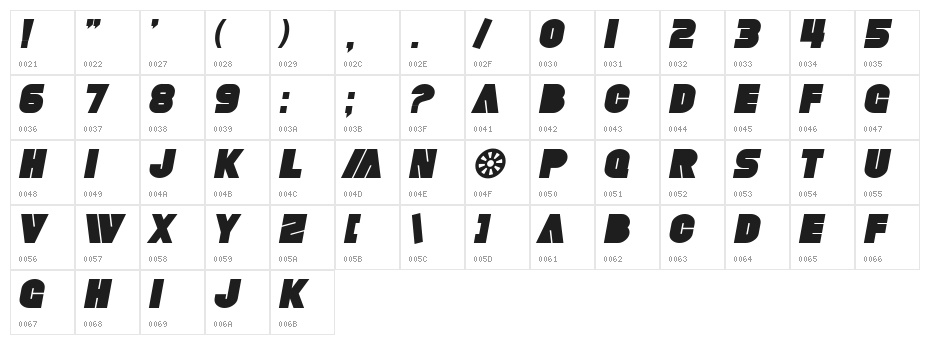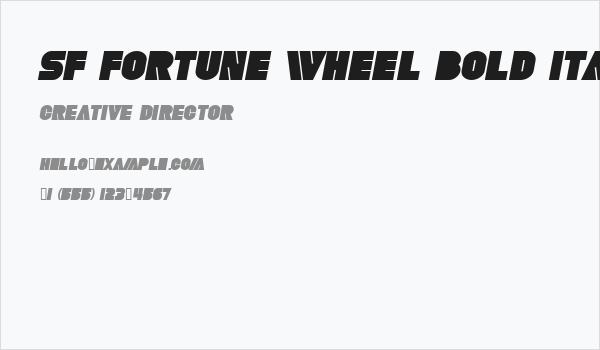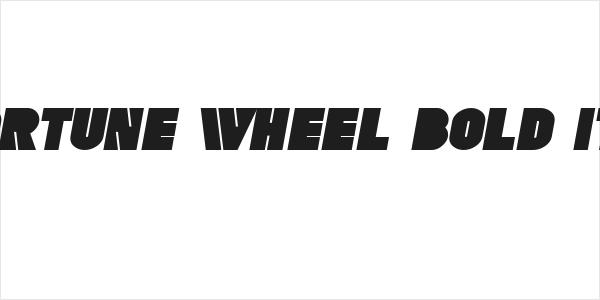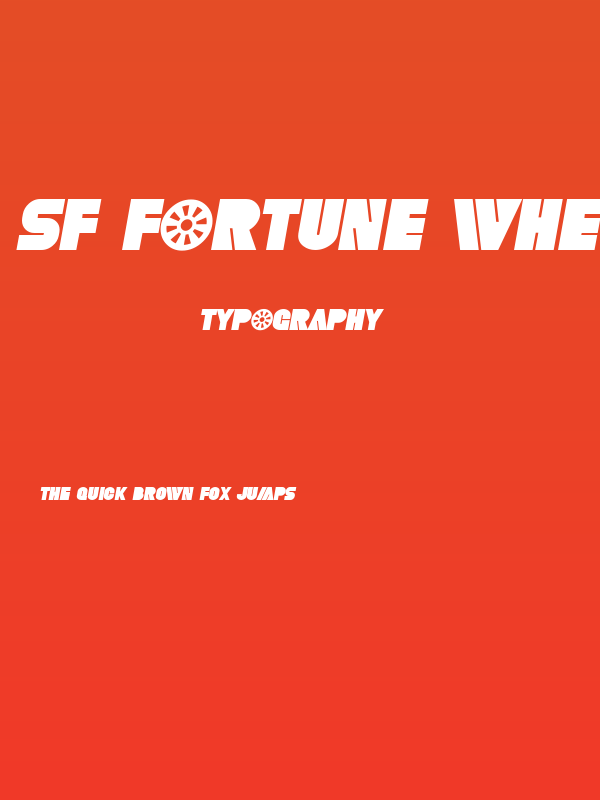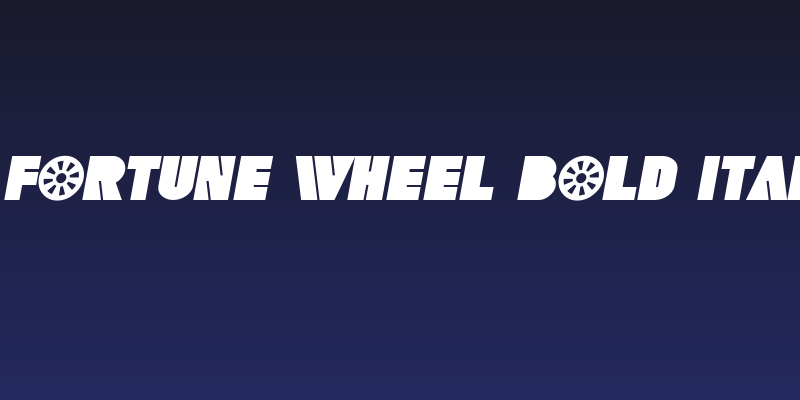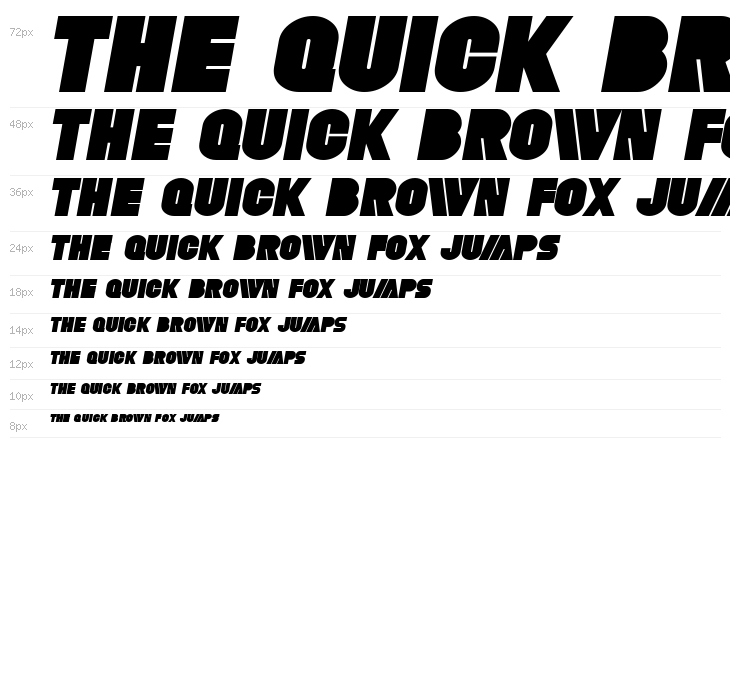
SF Fortune Wheel Bold Italic Font
SF Fortune Wheel Bold Italic Description
This font features a bold and italicized style with a distinct geometric and angular design. The characters are sharply cut with a forward-leaning slant, giving a sense of movement and dynamism. The uppercase letters are particularly striking, with a unique wheel-like design incorporated into the letter 'O'. The numbers and special characters maintain the same bold and angular aesthetic, ensuring consistency across all glyphs. This font is ideal for creating eye-catching headlines or logos that require a modern and edgy look.